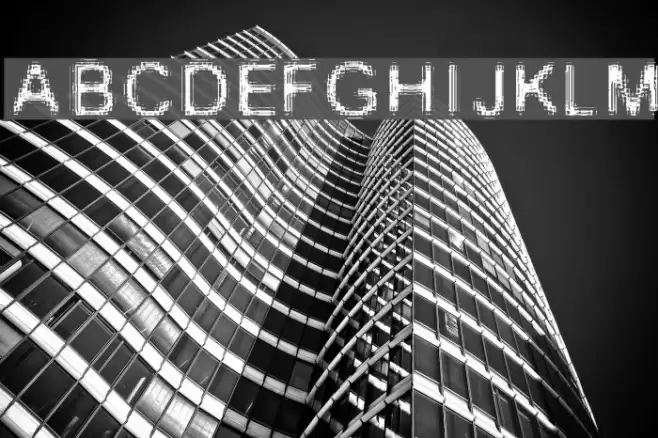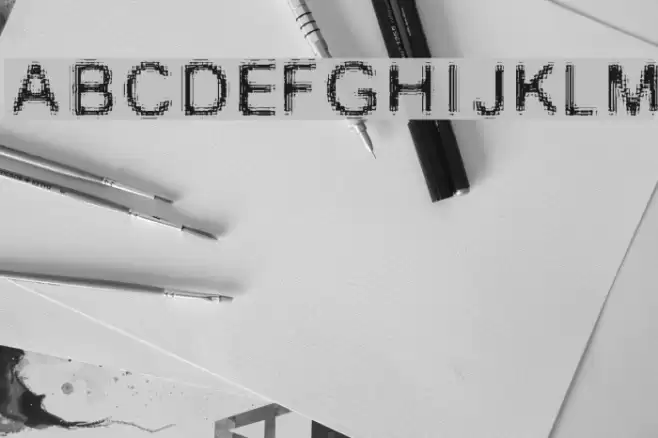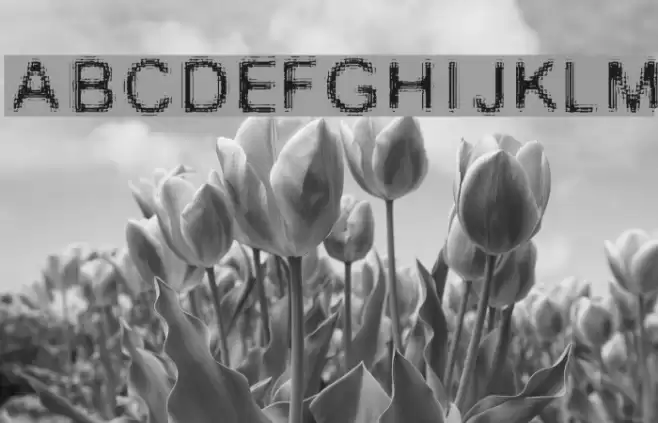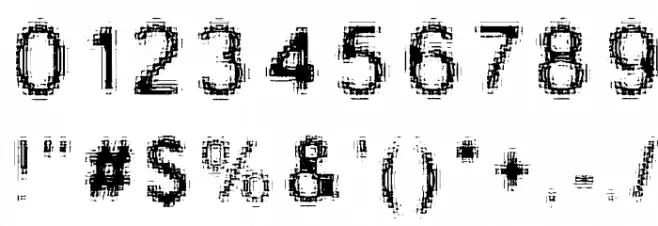
Wire Mush Font
Wire Mush Description
This font features a distressed, textured appearance that gives it a unique, worn look. The characters are bold and slightly condensed, with a rough, hand-drawn quality that adds a sense of authenticity and character. The uppercase and lowercase letters maintain a consistent style, with rounded edges and a slightly uneven baseline, enhancing the organic feel. The numerals and special characters follow the same design principles, ensuring a cohesive look across all glyphs. This font's distinctive style makes it ideal for projects that require a vintage or grunge aesthetic.
A bold, textured font with a distressed, hand-drawn appearance from Uncategorized fonts.
- Proposed Projects: Ideal for vintage posters, album covers, branding for artisanal products, or any design needing a grunge aesthetic.
- Overall Style: Vintage